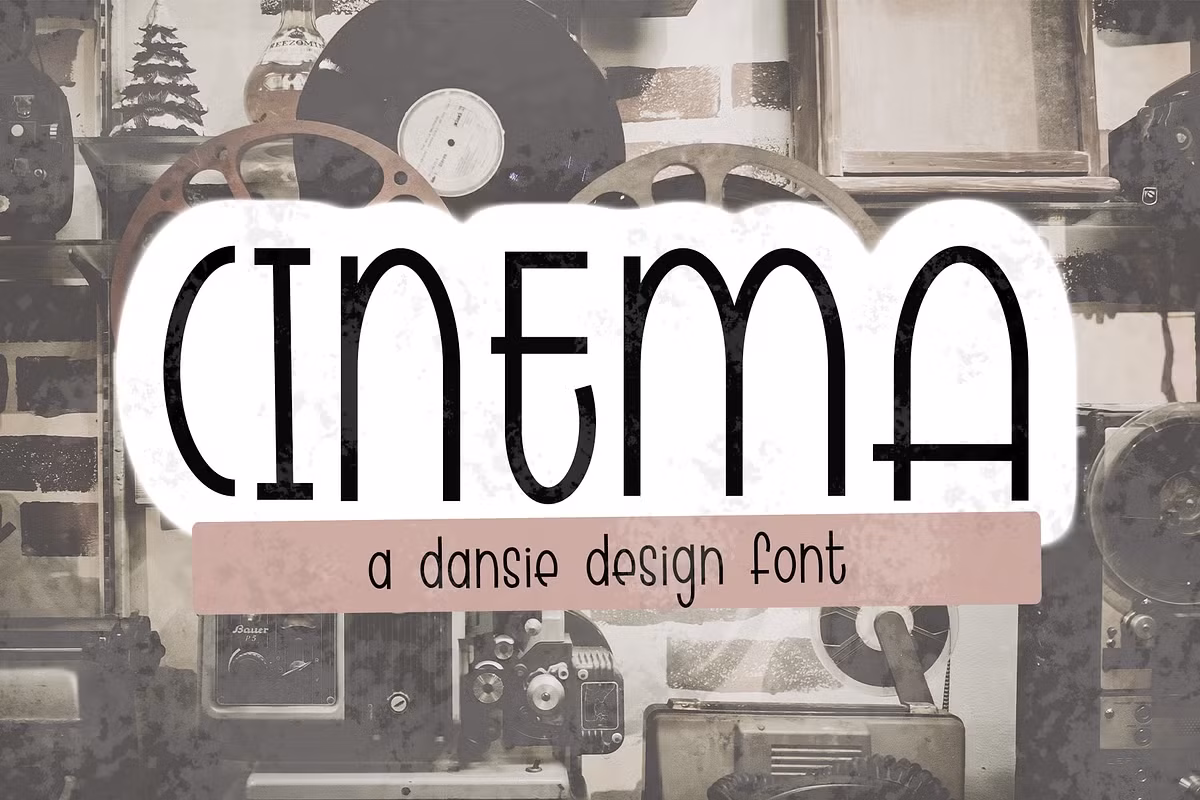
Step into the spotlight with CINEMA Regular + Outline Font Free Download, a bold and stylish typeface duo designed to bring a cinematic flair to your projects. With both solid and outline versions, this font is perfect for movie posters, event flyers, logos, social media graphics, and bold headlines that demand attention.
The regular version delivers strong, clean letterforms ideal for impactful statements, while the outline variant adds a sleek, modern twist perfect for layering or highlighting key words. CINEMA includes uppercase letters, numbers, and basic punctuation, giving you creative flexibility while testing design concepts.
Use this typeface to create bold typographic moments with retro or modern vibes. For commercial use, make sure to purchase the appropriate license. Download the CINEMA Regular + Outline Font Free Download today and give your designs the drama and flair they deserve.